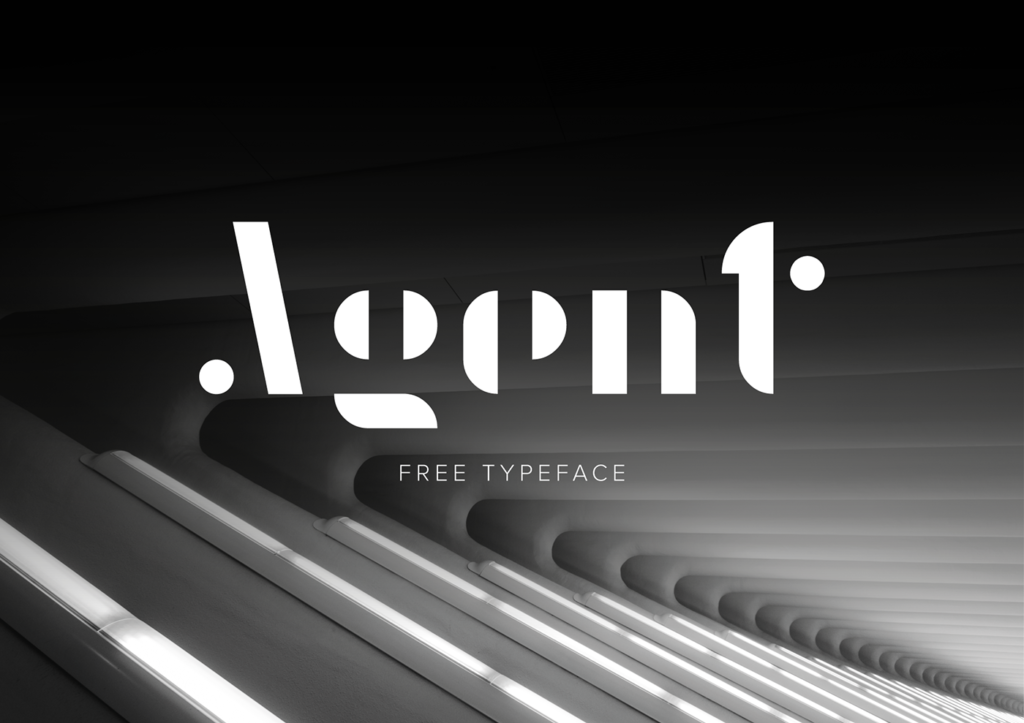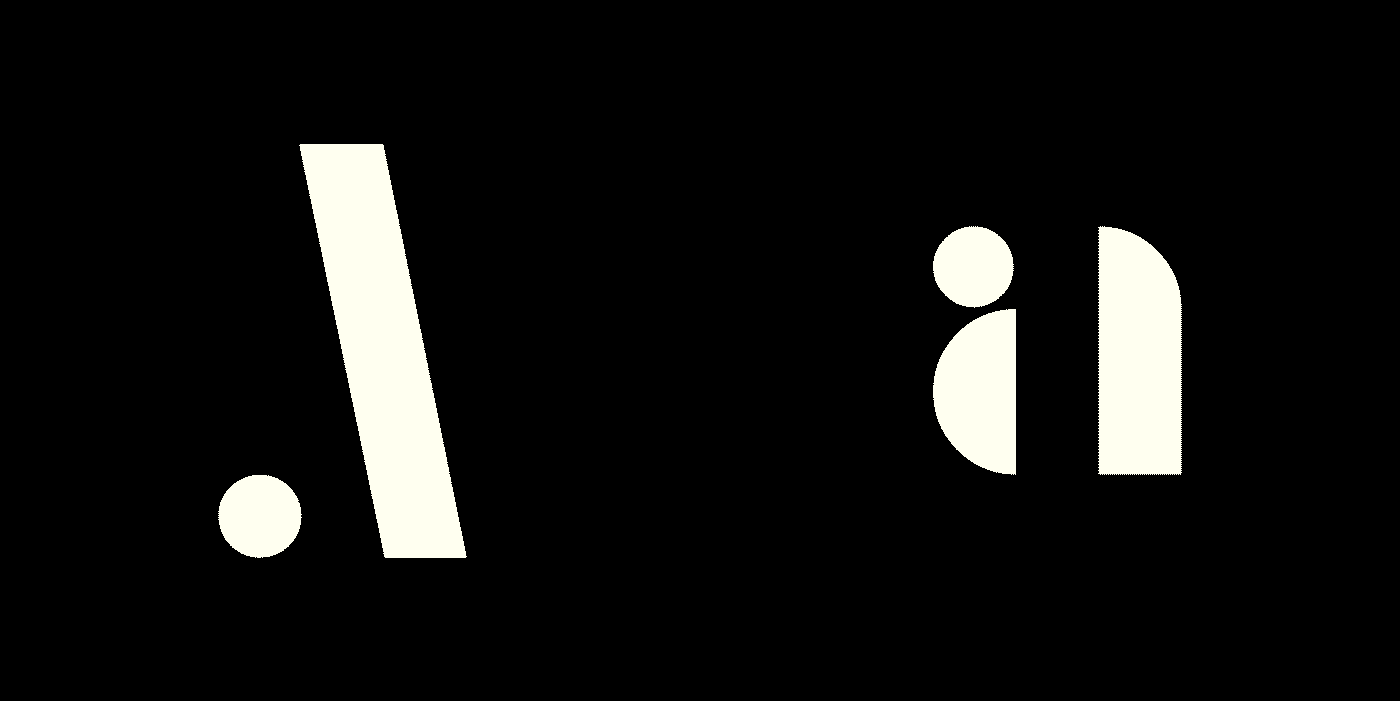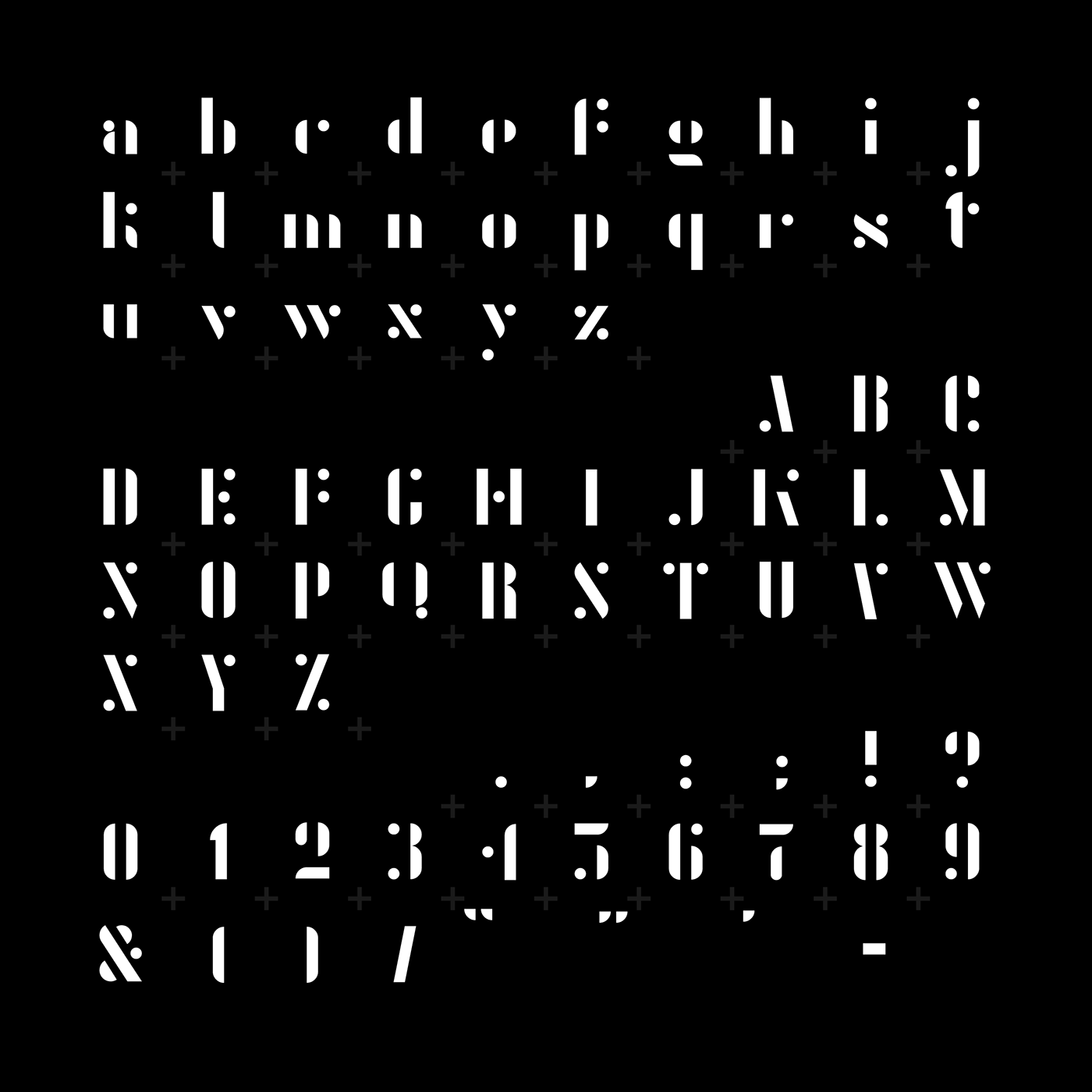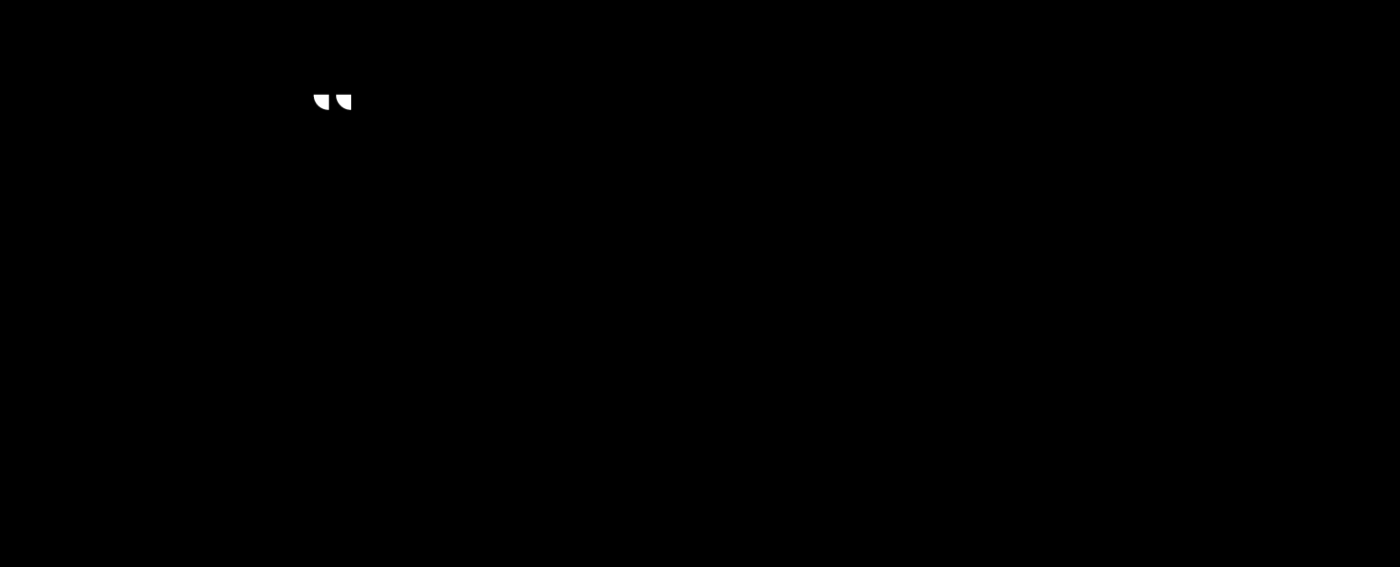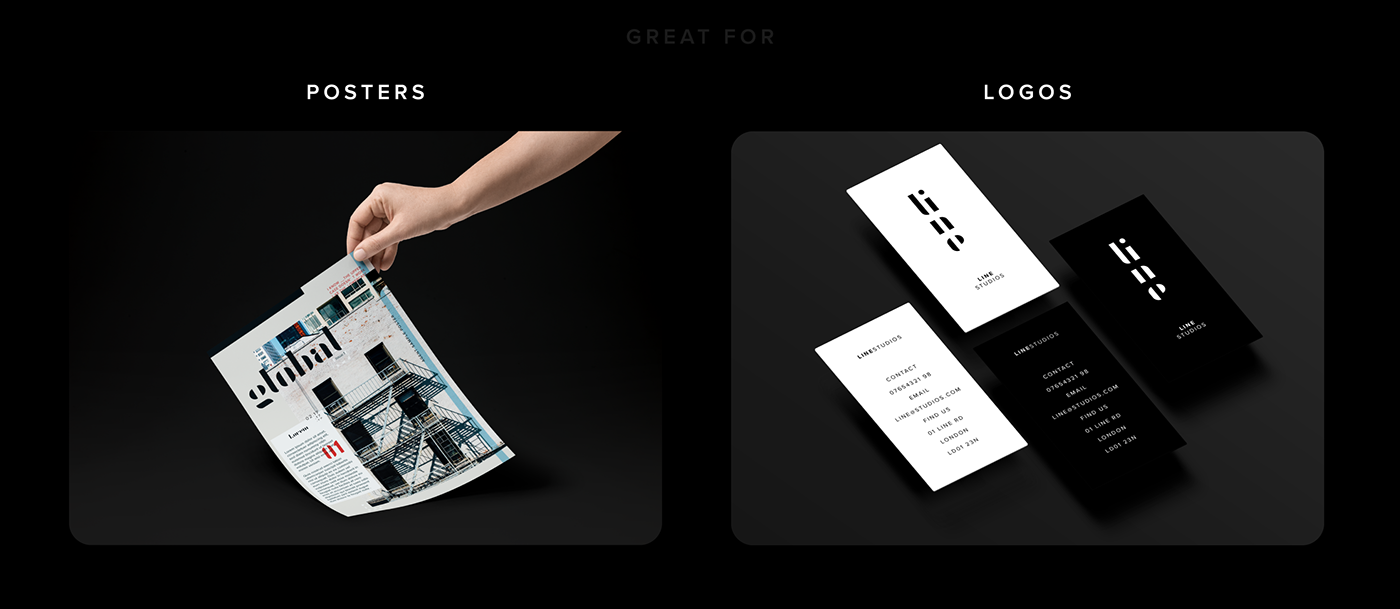
Agent is minimal stencil display typeface inspired by clear simplistic geometric forms and structures envisaged by Le Corbusier. This gorgeous font was designed by Mark O’Neill from Hereford, United Kingdom.
Agent was created for a 4 week project under the name ‘envisage’. To see the Design Manual behind the creation of the typeface, check out the Envisage Design Manual.